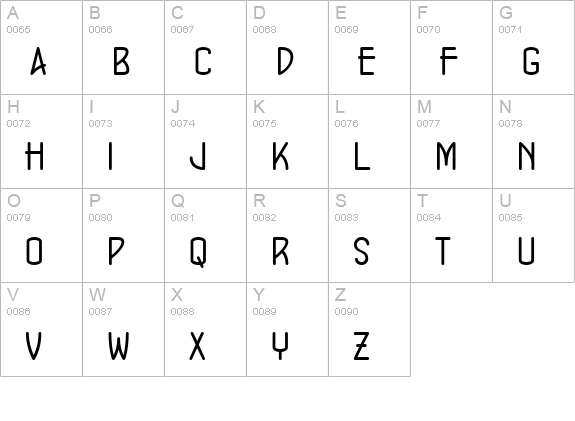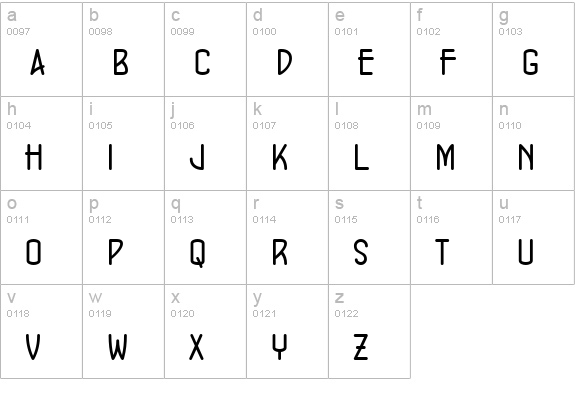
ConcursoModerne BTN font is a modern and stylish typeface that exudes sophistication and elegance. With its sleek lines and contemporary design, this font is perfect for creating eye-catching designs and projects. Whether you're working on branding materials, invitations, or website headers, ConcursoModerne BTN font is sure to make a statement. What sets this font apart is that it is available for free download at FontsMarket.com. That's right, you can add this stunning font to your collection without having to spend a penny. Don't miss out on the opportunity to elevate your designs with the timeless appeal of ConcursoModerne BTN font. Download it today and let your creativity shine!